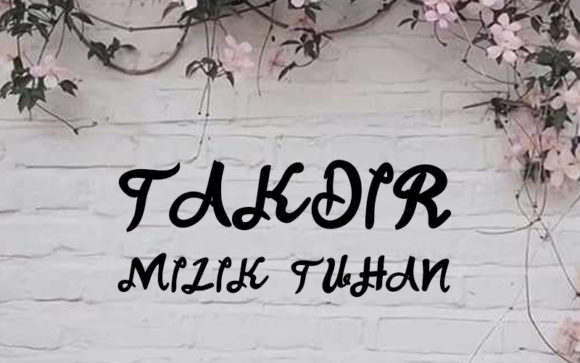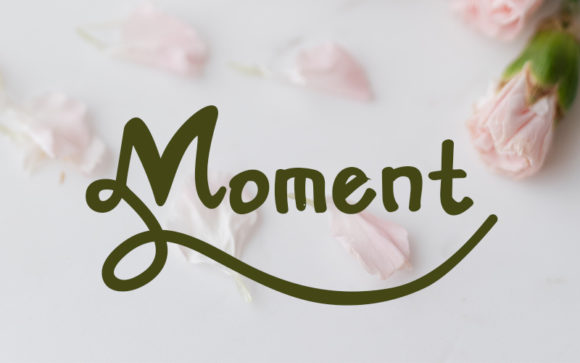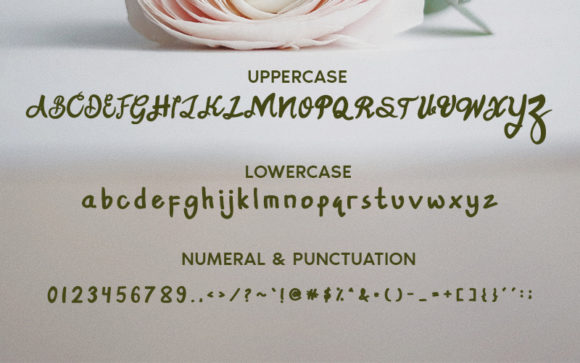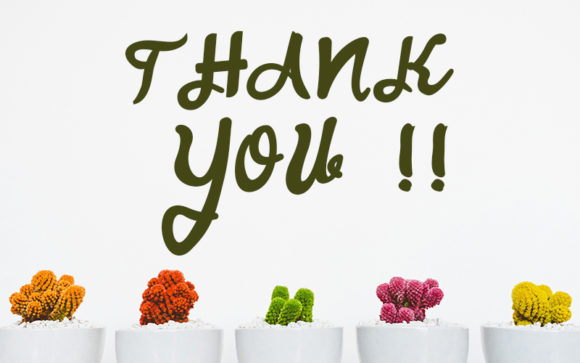
Introduction to Mongsta Font
Have you ever found yourself in the middle of a creative project, surrounded by scraps of paper and half-finished designs, only to stumble upon that perfect font that brings everything together? For designers, this moment is pure magic – and it’s exactly what the Mongsta Font promises to deliver.
With its unique, handwritten style and touch of elegance, the Mongsta Font is the perfect design resource for anyone looking to add a personal touch to their DIY project. Whether you’re working on a free download or a high-end design, this font is sure to elevate your work and make it stand out from the crowd.
One of the key features of the Mongsta Font is its transparent background, making it easy to layer over other design elements and create a cohesive look. And with its high-quality design, you can be sure that your project will look professional and polished – every time.
Mongsta Font
- High-quality, unique font design ideal for creative projects and designs.
- Unique Mongsta Font style that is perfect for adding a touch of edginess to any design project.
Honest Review: Mongsta Font
I recently had the opportunity to work with the Mongsta Font in a creative project, and I was impressed by its unique style. The free download from the design resource website made it easy to incorporate into my design, and the transparent background allowed for seamless integration with my existing layout.
What works well about the Mongsta Font is its versatility. It’s perfect for a variety of designs, from logos to typography-based projects. The font’s bold and edgy feel adds a touch of sophistication to any creative project.
Here are some of the key features that stood out to me:
- Unique and bold style
- Perfect for logos, typography, and creative projects
While the Mongsta Font is high quality and easy to use, there are a few limitations to consider: ⚠️
- May not be suitable for all design styles or themes
- Some users may find the font’s boldness overwhelming
- Logo design projects
- Print design projects
- Choose a transparent background to give your graffiti art a sense of depth.
- Experiment with different colors and textures to create a unique look.
- Pair Mongsta Font with bold, geometric shapes for a striking contrast.
- Use a mix of digital and hand-drawn elements to add a personal touch.
- Experiment with layering different design elements to create a sense of depth.
- Choose a high-quality image as the background to add texture and interest.
- Play with font colors and styles to create a visually appealing design.
- Pair Mongsta Font with bold, eye-catching images to create a striking visual effect.
- Use a mix of font styles and sizes to add visual interest.
- Experiment with different design
Creative Projects with Mongsta Font
Mongsta Font Graffiti Art
Transform the Mongsta Font into vibrant graffiti art with a touch of urban flair. This creative project combines the edgy feel of the font with bright colors and dynamic shapes.
To use Mongsta Font in this project:
Mongsta Font Typography Poster
Create a stunning typography poster featuring the Mongsta Font as the main attraction. This project showcases the font’s unique style and character.
To use Mongsta Font in this project: